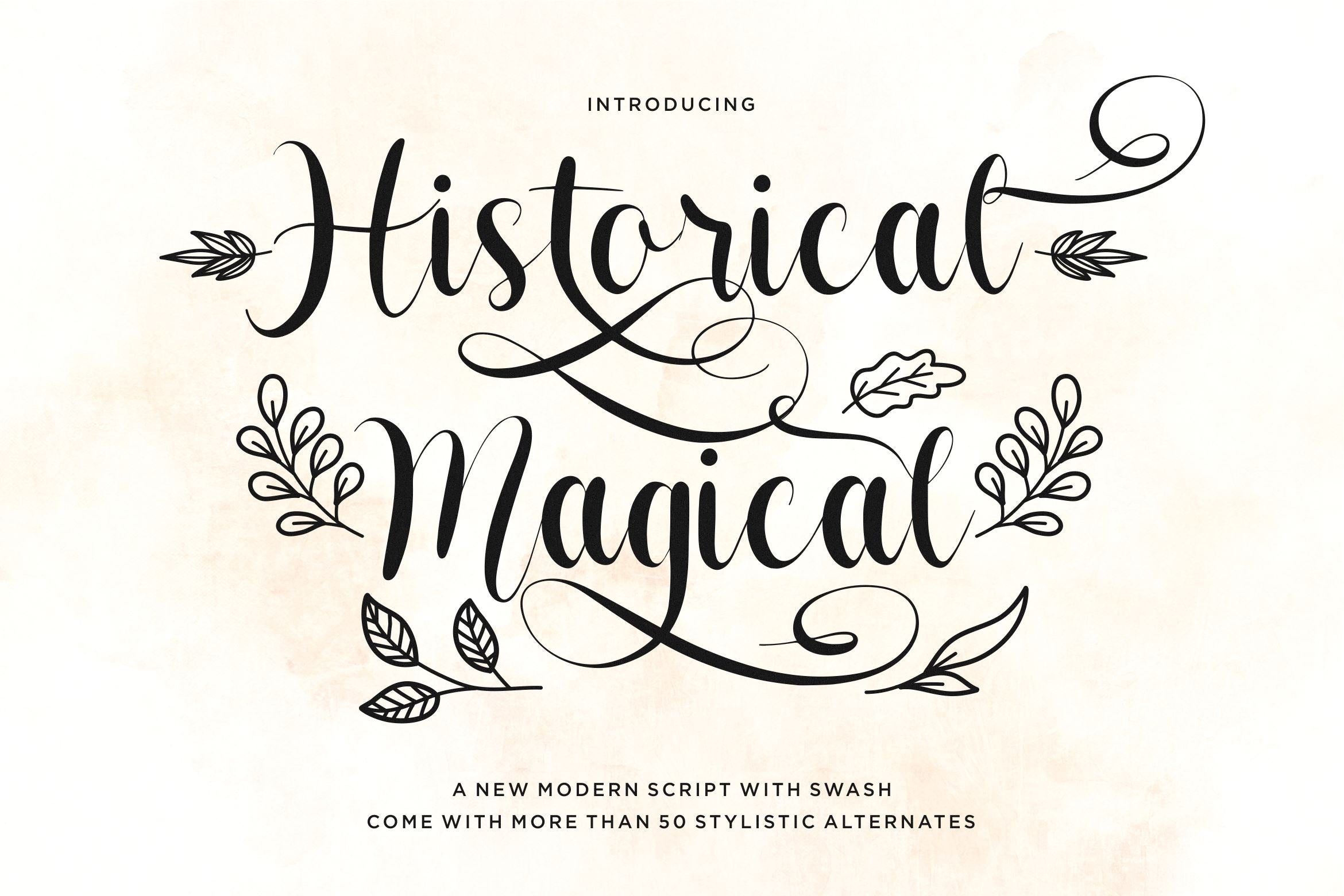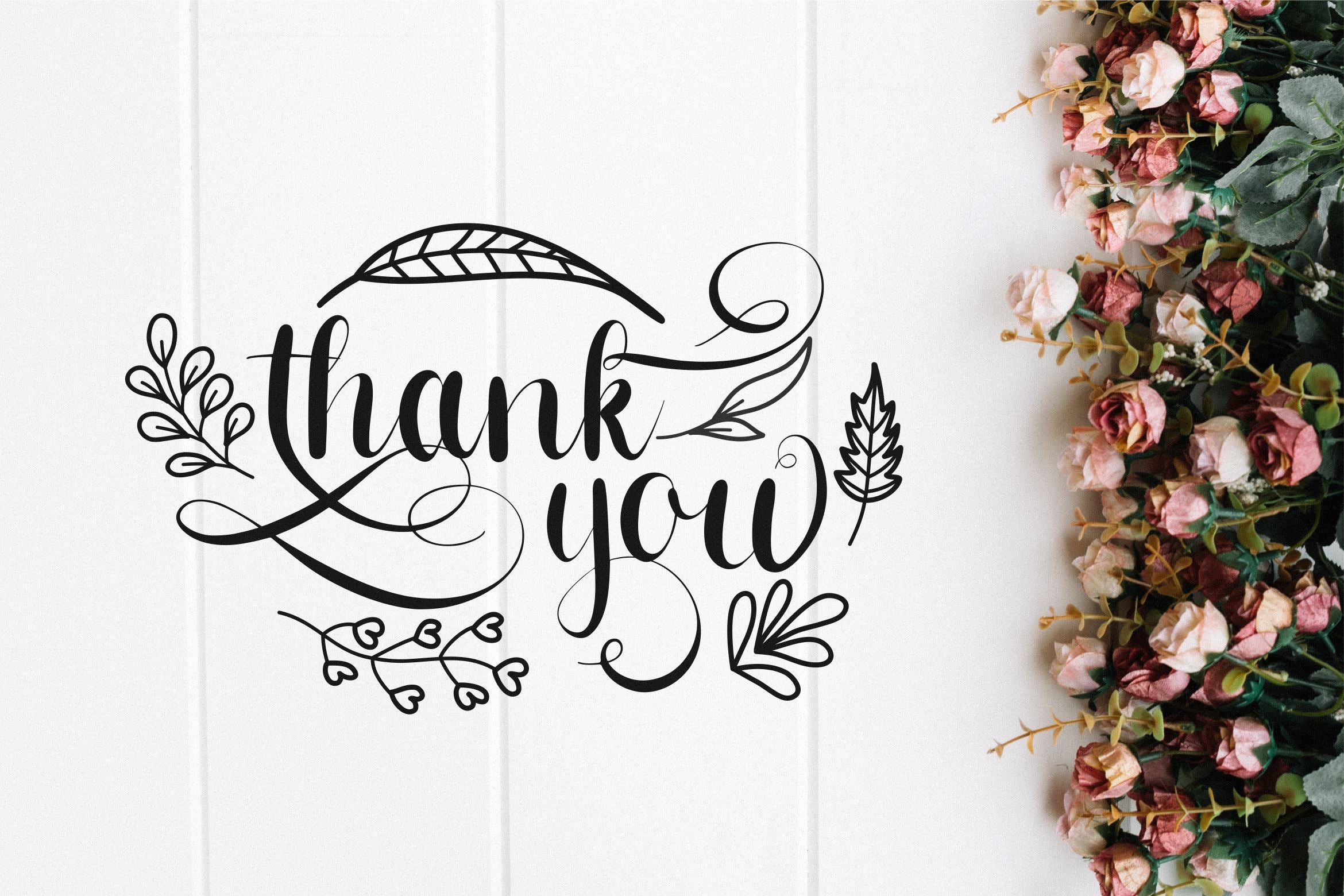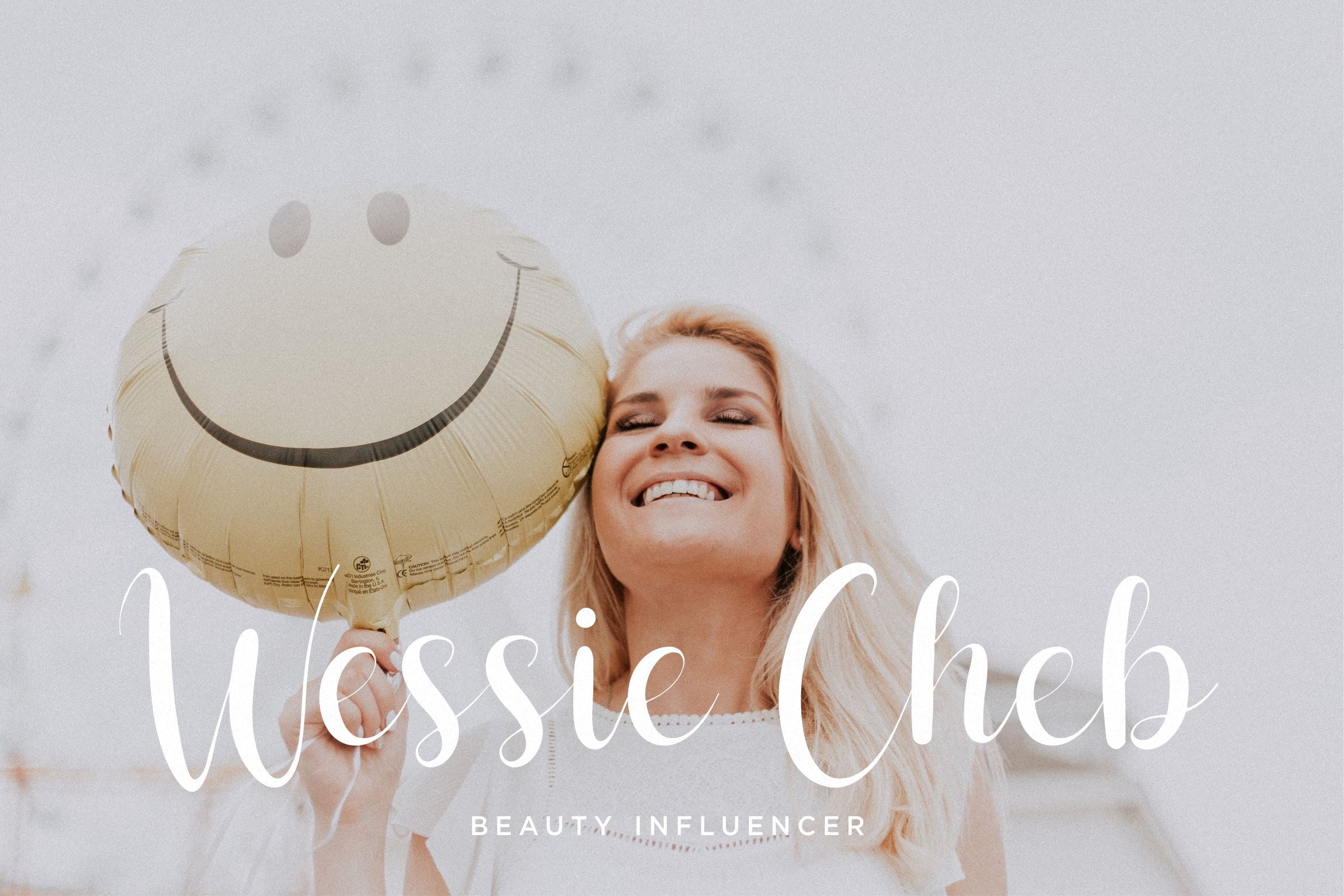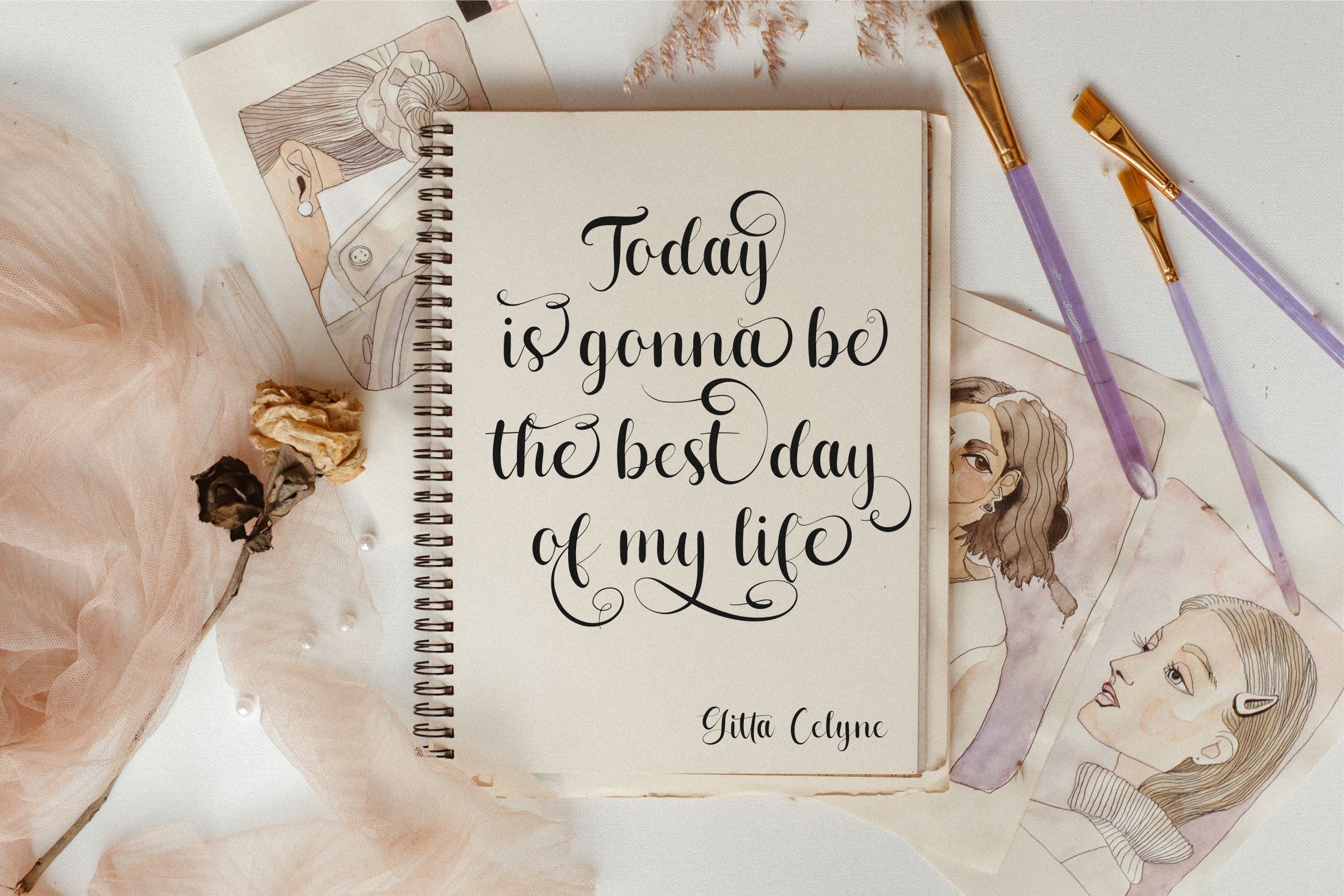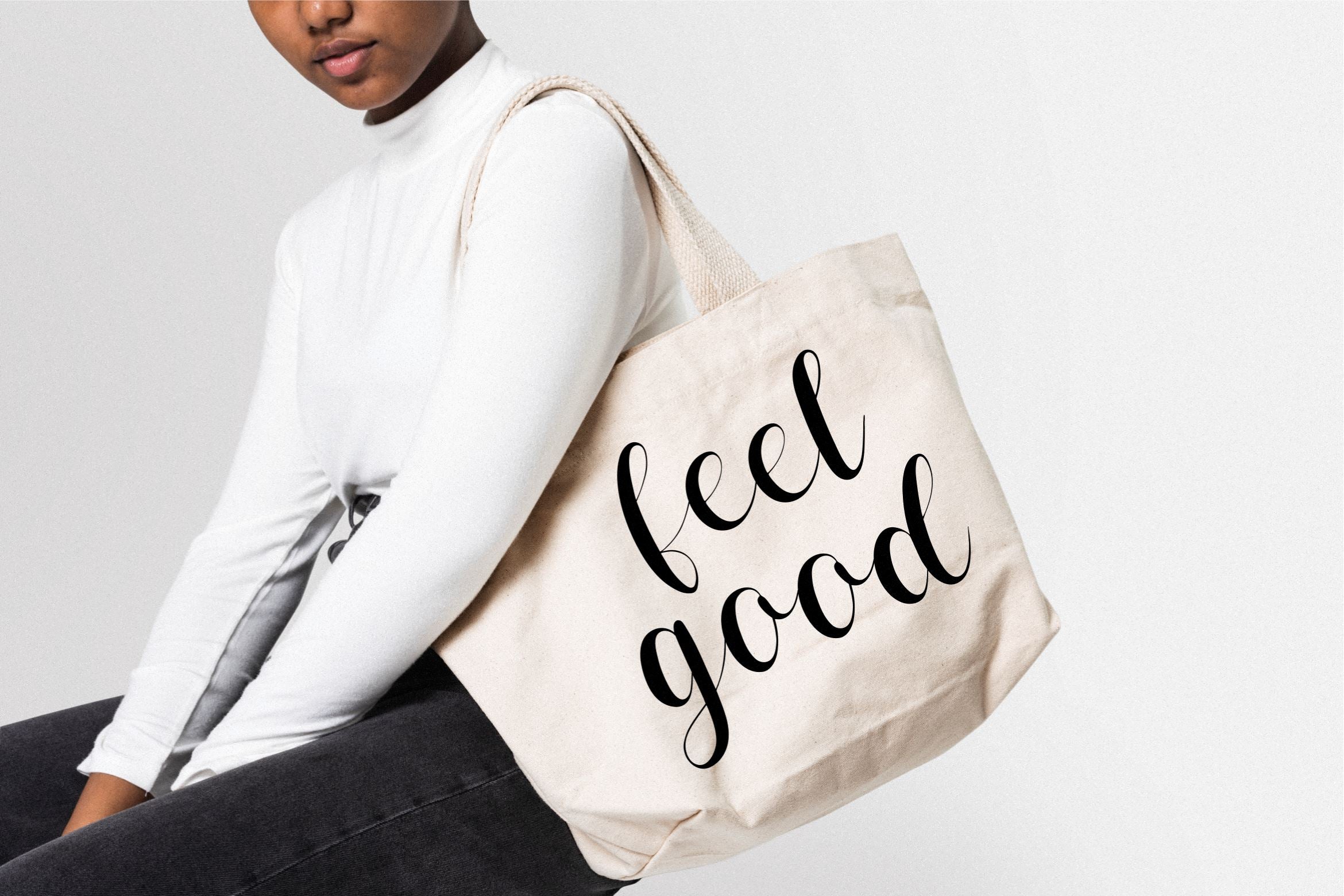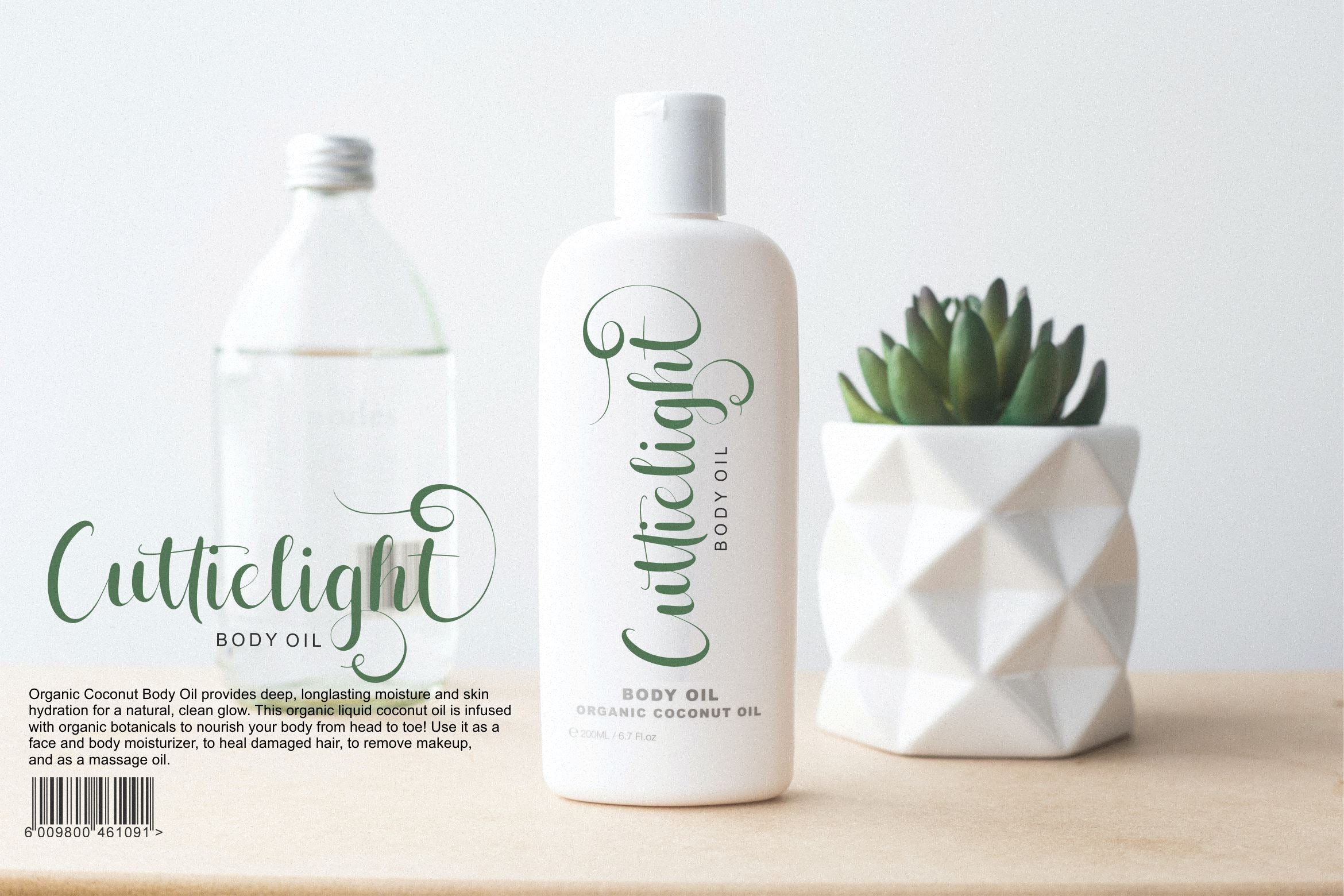
About Historical Magical
Introducing by Qwrtype Proudly Present, Historical Magical Historical MagicalĀ is a New Modern Script with Swash Historical MagicalĀ is perfect for product packaging, branding project, megazine, social media, wedding, or just used to express words above the background. This font includes OTF, TTF & Woff,Ā Historical MagicalĀ also multilingual support. Enjoy the font, feel free to comment or feedback, send me PM or email. Thank you!